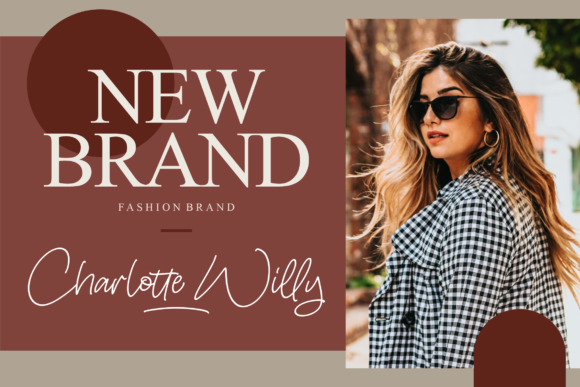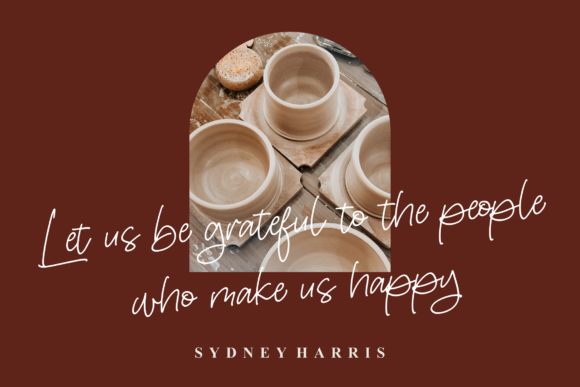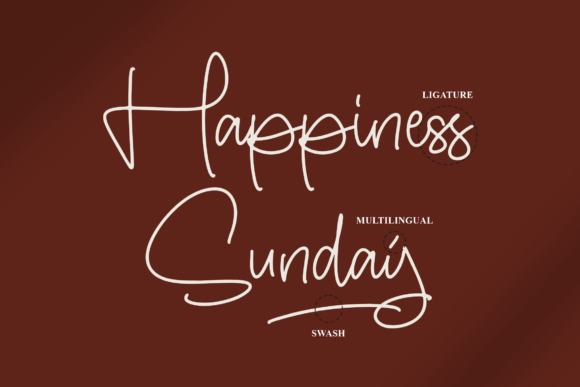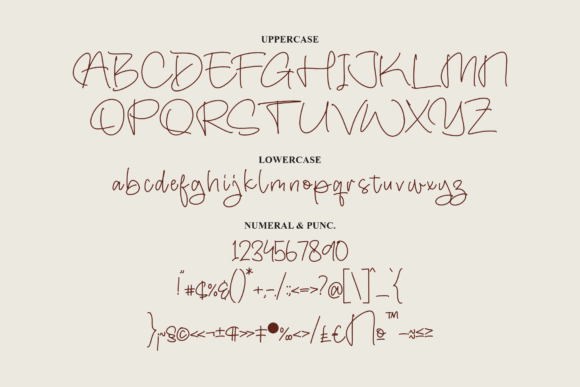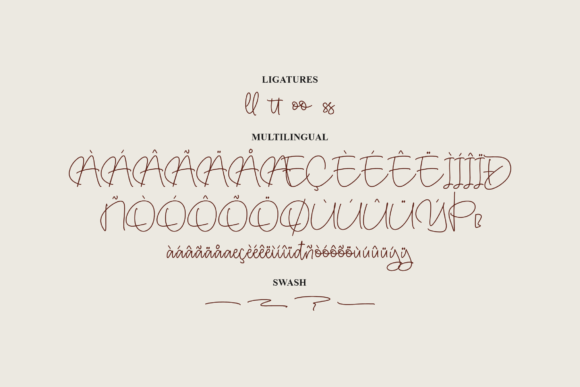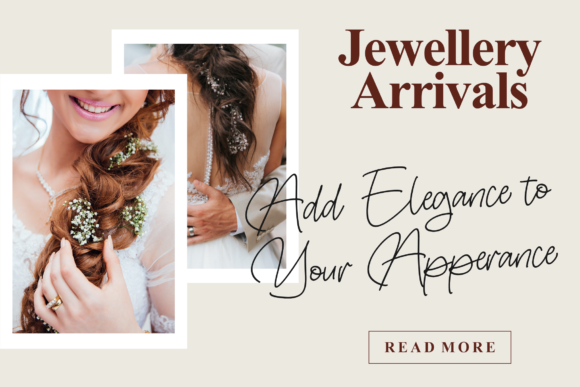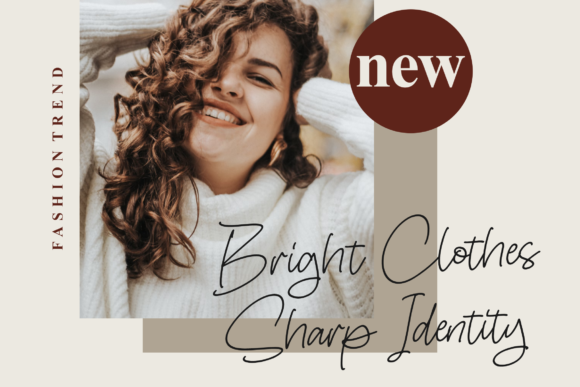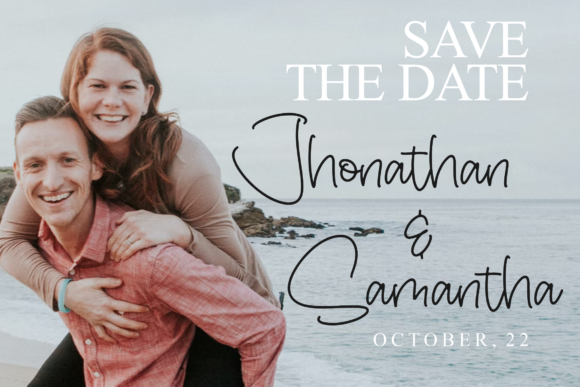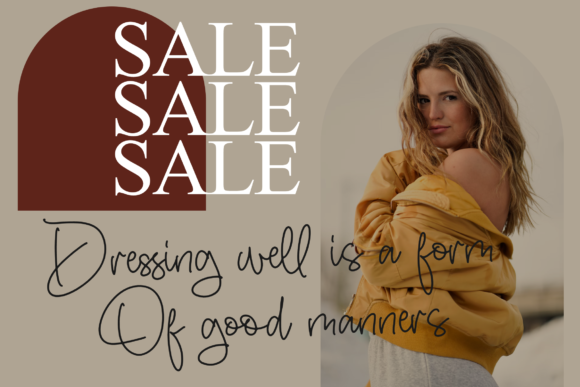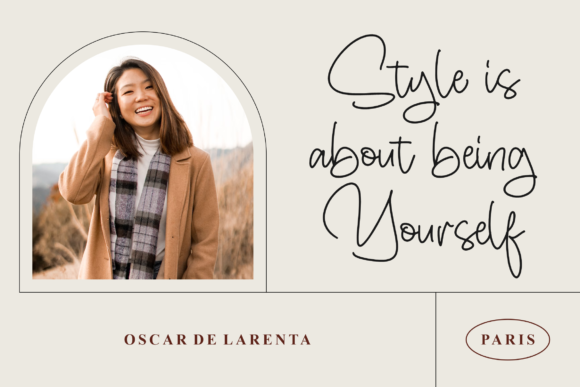
Amisha Rose Font
About Amisha Rose Font
Amisha Rose, crafted by Perspectype Studio, is a refined Monoline Script Font that proves to be a versatile choice for an array of creative projects. Tailored for diverse design applications, Amisha Rose is well-suited for logos, branding projects, homeware designs, product packaging, mugs, quotes, posters, shopping bags, t-shirts, book covers, name cards, invitation cards, greeting cards, labels, photography, watermarks, special events, and any other projects that call for a touch of beautiful script typography.
The font distinguishes itself with its monoline script design, showcasing a harmonious balance between elegance and simplicity. Perspectype Studio’s attention to detail ensures that Amisha Rose seamlessly adapts to both digital and print media, making it a reliable choice for various creative contexts.
Amisha Rose imparts a sense of refinement and style to your projects, elevating their visual appeal with its beautiful script taste. The font’s consistent line weight and well-crafted characters contribute to its readability, ensuring effectiveness across different applications. Whether employed for commercial branding or personal projects, Amisha Rose adds a distinctive touch to your designs.
Beyond digital applications, Amisha Rose’s versatility extends to tangible items such as mugs, t-shirts, and product packaging. Its adaptability to diverse design contexts positions it as a valuable asset for designers seeking to establish a cohesive and aesthetically pleasing brand identity.
In conclusion, Amisha Rose exemplifies Perspectype Studio’s commitment to delivering a monoline script font that combines sophistication with simplicity. Whether used for logos, merchandise, or print materials, Amisha Rose injects a sense of beauty into your projects, making it an excellent choice for those seeking a monoline script font with a refined aesthetic.